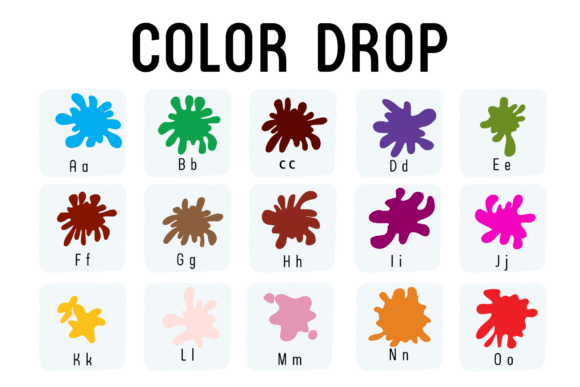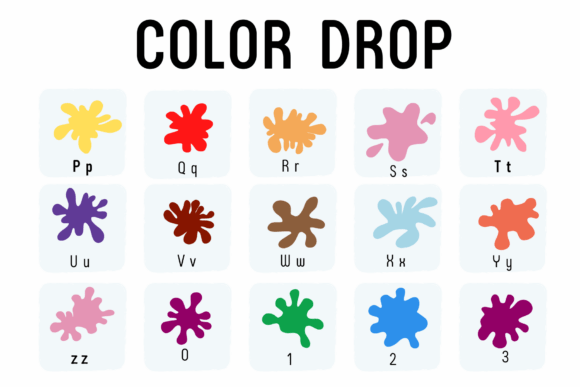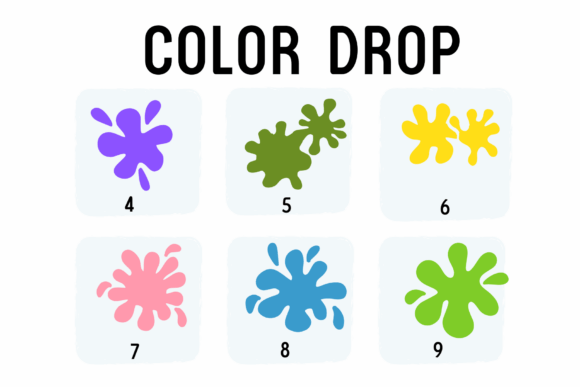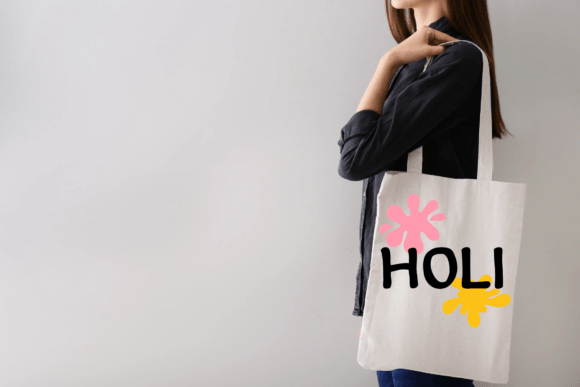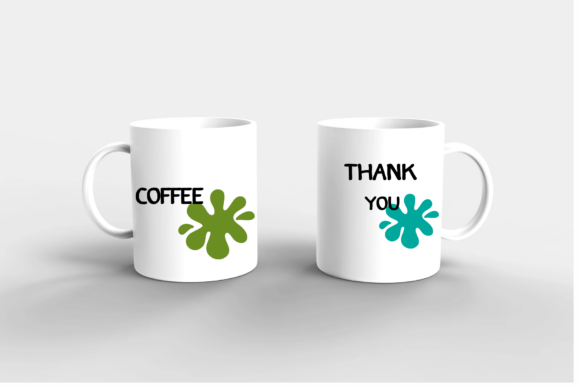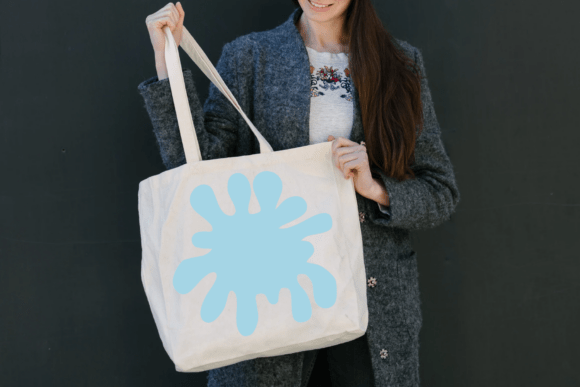
Introduction to Color Drop Font
Color Drop is a vibrant and playful dingbats font filled with colorful paint splatter shapes that burst with creative energy.
Ideal for adding a bold and artistic flair to childrenโ€™s projects, craft designs, comic-style layouts, and school materials, this font provides a splash of fun in every glyph From quirky blots to expressive splashes, itโ€™s a perfect decorative accent for both digital and print designs.